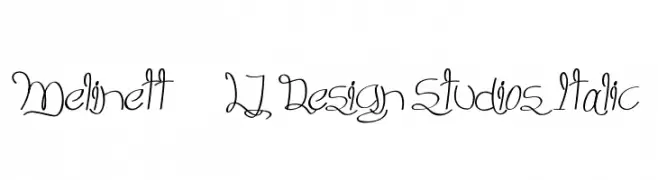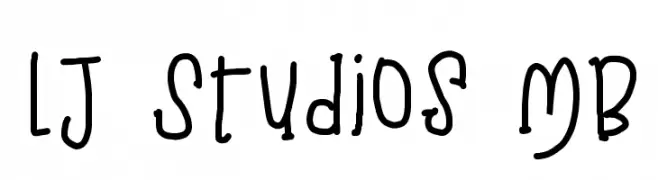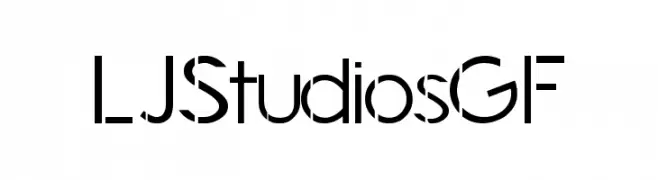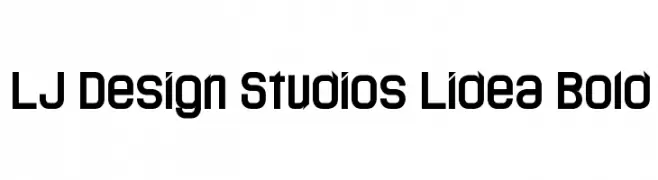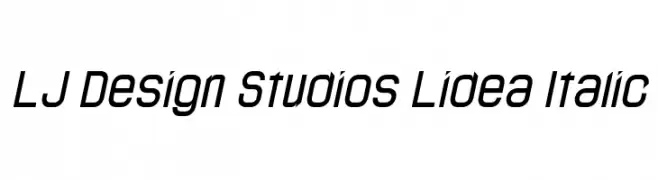
A bold, geometric sans-serif font with a modern, uniform design.
An elegant, flowing script font with intricate loops and swirls.
A bold, geometric font with sharp, angular edges and a modern style.
A fluid and elegant script font with italic styling.
A bold, handwritten font with fluid, energetic strokes.
A playful, handwritten font with a whimsical and casual style.
A modern, geometric font with sharp, angular lines and a futuristic style.
A modern, geometric font with clean lines and a structured appearance.
A bold, geometric font with a modern and futuristic design.
A modern, italicized font with a sleek and futuristic design.